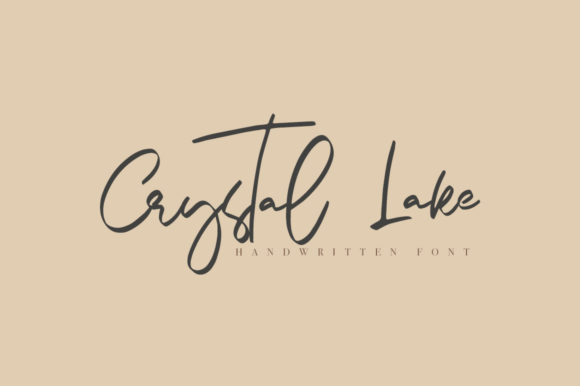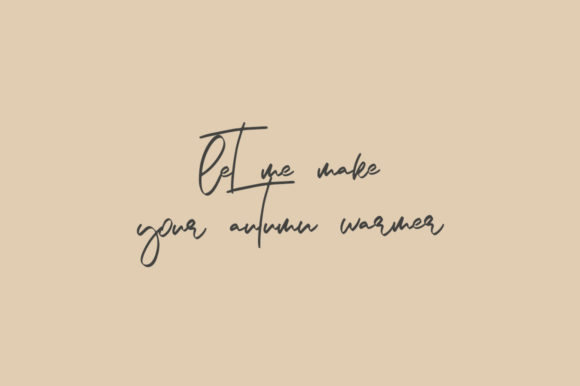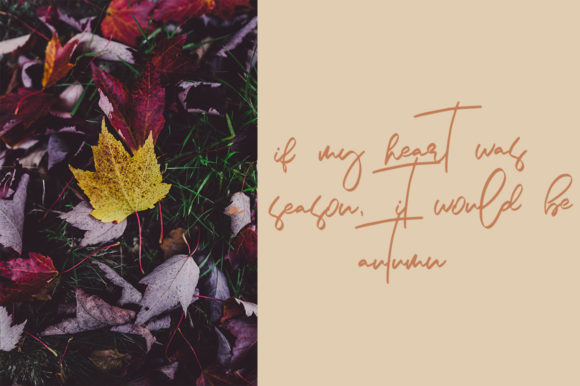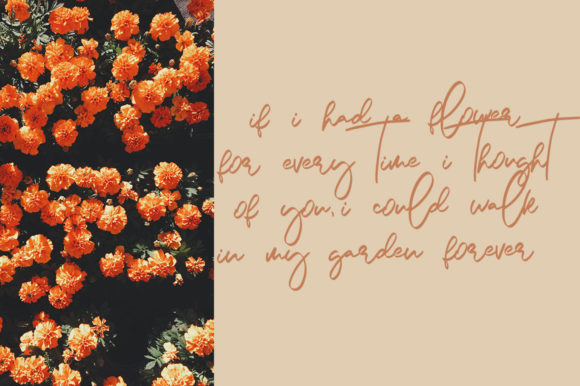
Crystal Lake Font: Elegant Script for DIY & Branding Projects!
About the Crystal Lake Font
Elevate your designs with Crystal Lake Font, a font that combines sophistication with readability. Crystal Lake is a stylish script font carefully created with a touch of elegance. Whether you’re looking for fonts for Instagram or calligraphy scripts for DIY projects, this font will turn any creative idea into a true piece of art!
Crystal Lake excels in applications requiring a touch of refined elegance, such as logos, short headlines, invitations, or social media graphics where its stylish script form shines. It’s ideal for branding projects aiming for a sophisticated yet approachable feel. However, its decorative nature makes it less suitable for body text or extended reading; legibility suffers in smaller sizes or within lengthy paragraphs.
For optimal visual harmony, pair Crystal Lake with a clean sans-serif like Lato for a modern contrast, or a classic serif such as Garamond for a more traditional balance. A geometric sans-serif such as Montserrat could provide a contemporary edge, while a simpler, neutral sans-serif like Open Sans would offer versatility.
The overall personality of Crystal Lake is sophisticated and graceful, lending itself well to brands focused on beauty, fashion, or luxury goods. Its elegant, slightly whimsical feel should be considered when choosing a pairing font and the overall design context.
Crystal Lake Font Usage Examples
Crystal Lake Font Example